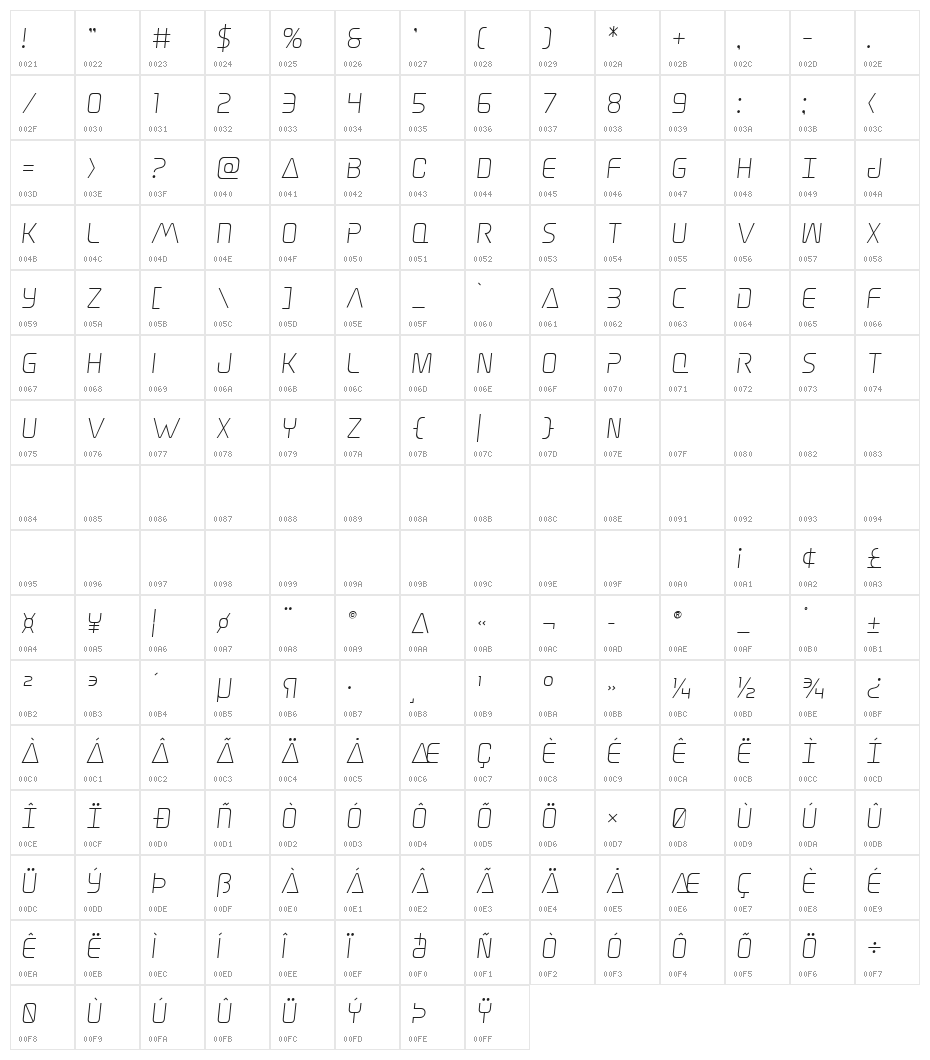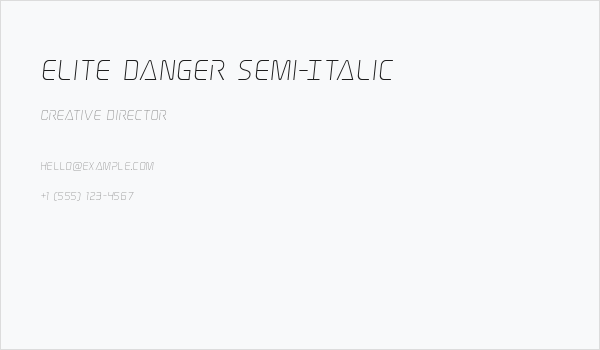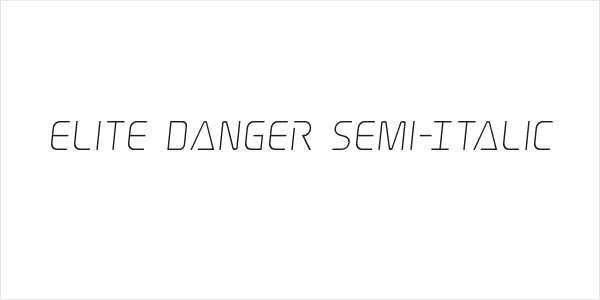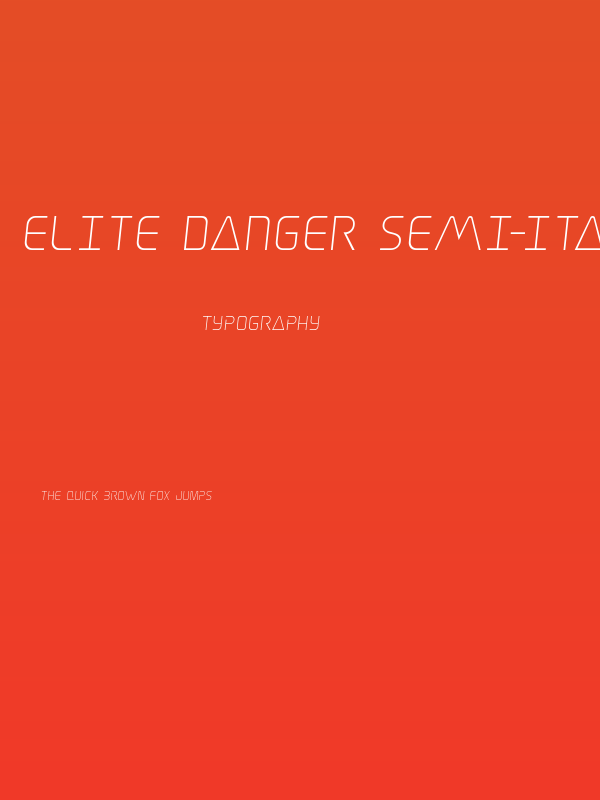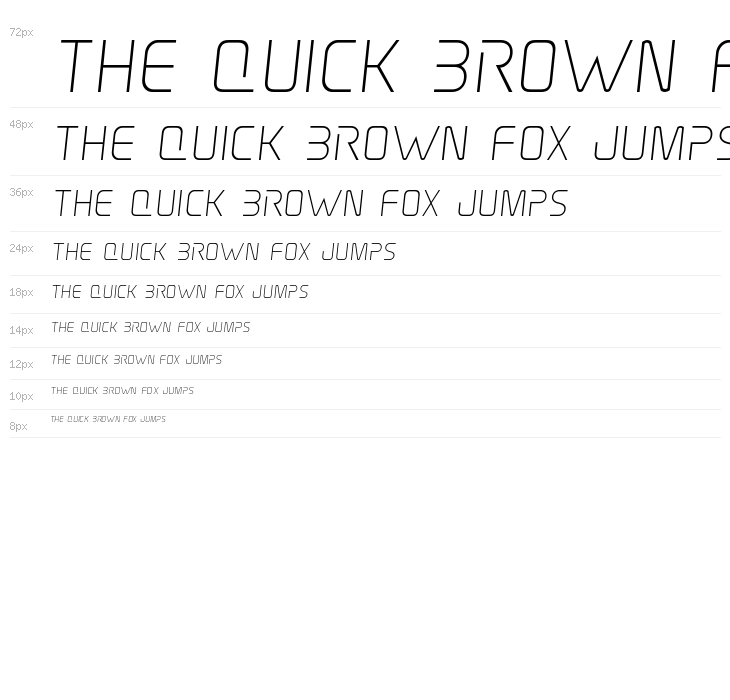
Elite Danger Semi-Italic Font
Elite Danger Semi-Italic Description
This font features a sleek, modern design with a semi-italic slant, giving it a dynamic and forward-moving appearance. The characters are constructed with clean, geometric lines and a consistent stroke width, contributing to a futuristic and technical aesthetic. The uppercase and lowercase letters maintain a uniform height, enhancing readability and creating a cohesive look. The numerals and special characters are designed with the same geometric precision, ensuring they integrate seamlessly with the alphabetic characters. This font's style is ideal for projects that require a contemporary and innovative feel.
| Use Case | Headlines, Logos, Digital Interfaces |
| Proposed Projects | Ideal for technology branding, modern advertising, digital interfaces, and innovative product packaging. |